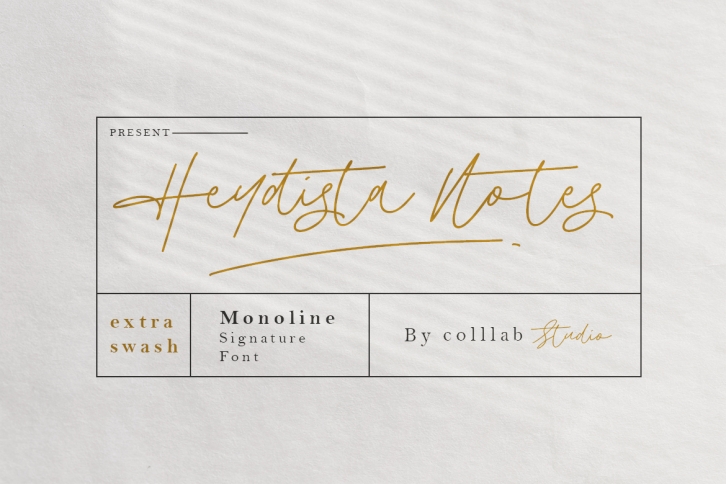
Heydista Notes is an outstanding handwritten font. This versatile script font has a wide spectrum of applications ranging from greeting cards to headlines. Heydista Notes is PUA encoded which means you can access all glyphs and swashes with ease!